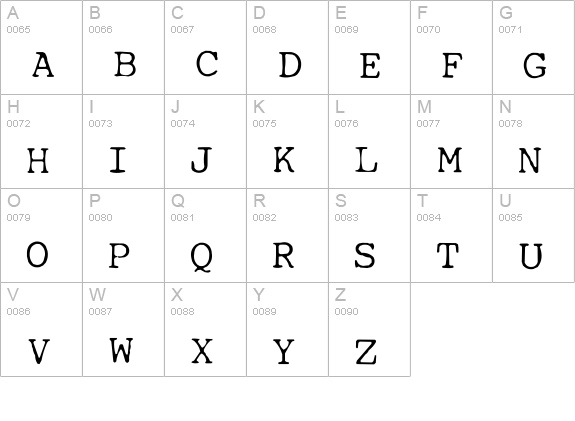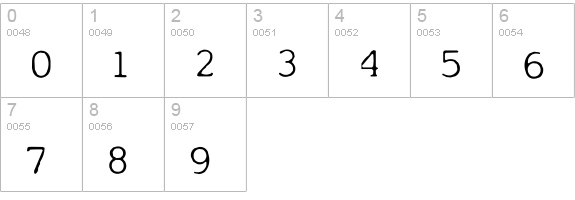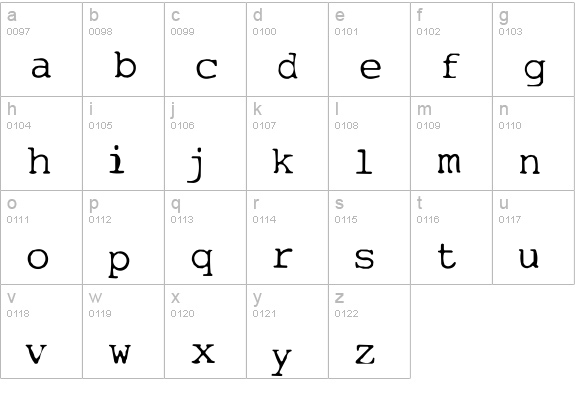
My type of font Font Details
Introducing "My type of font" - a versatile and modern font that is sure to make your designs stand out. This font is the perfect choice for projects that require a clean and professional look. With its sleek lines and bold characters, "My type of font" exudes confidence and sophistication. The best part? This font is completely free to download at FontsMarket.com. That's right, you can add this stylish font to your collection without spending a dime. Whether you're designing a logo, creating a website, or working on a print project, "My type of font" has got you covered. Don't miss out on this amazing opportunity to enhance your designs with a high-quality font that won't break the bank. Download "My type of font" today and elevate your creative projects to the next level.